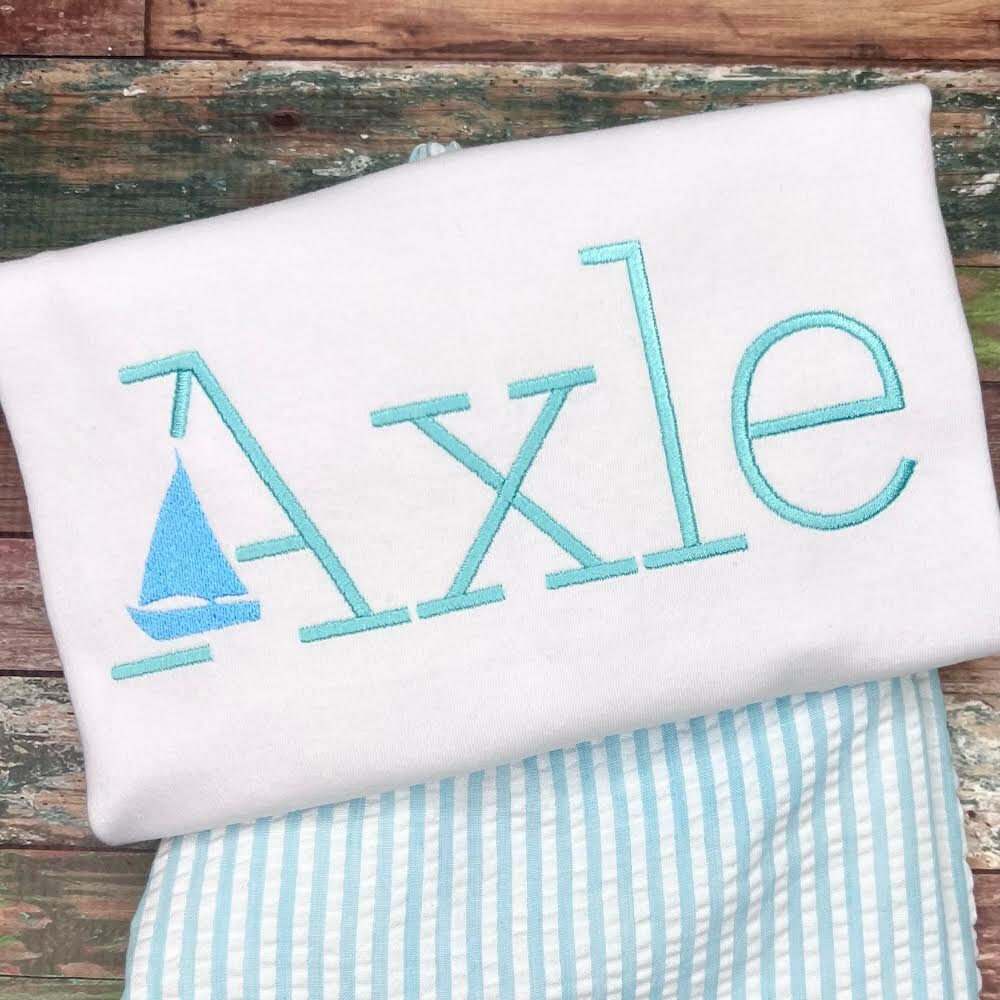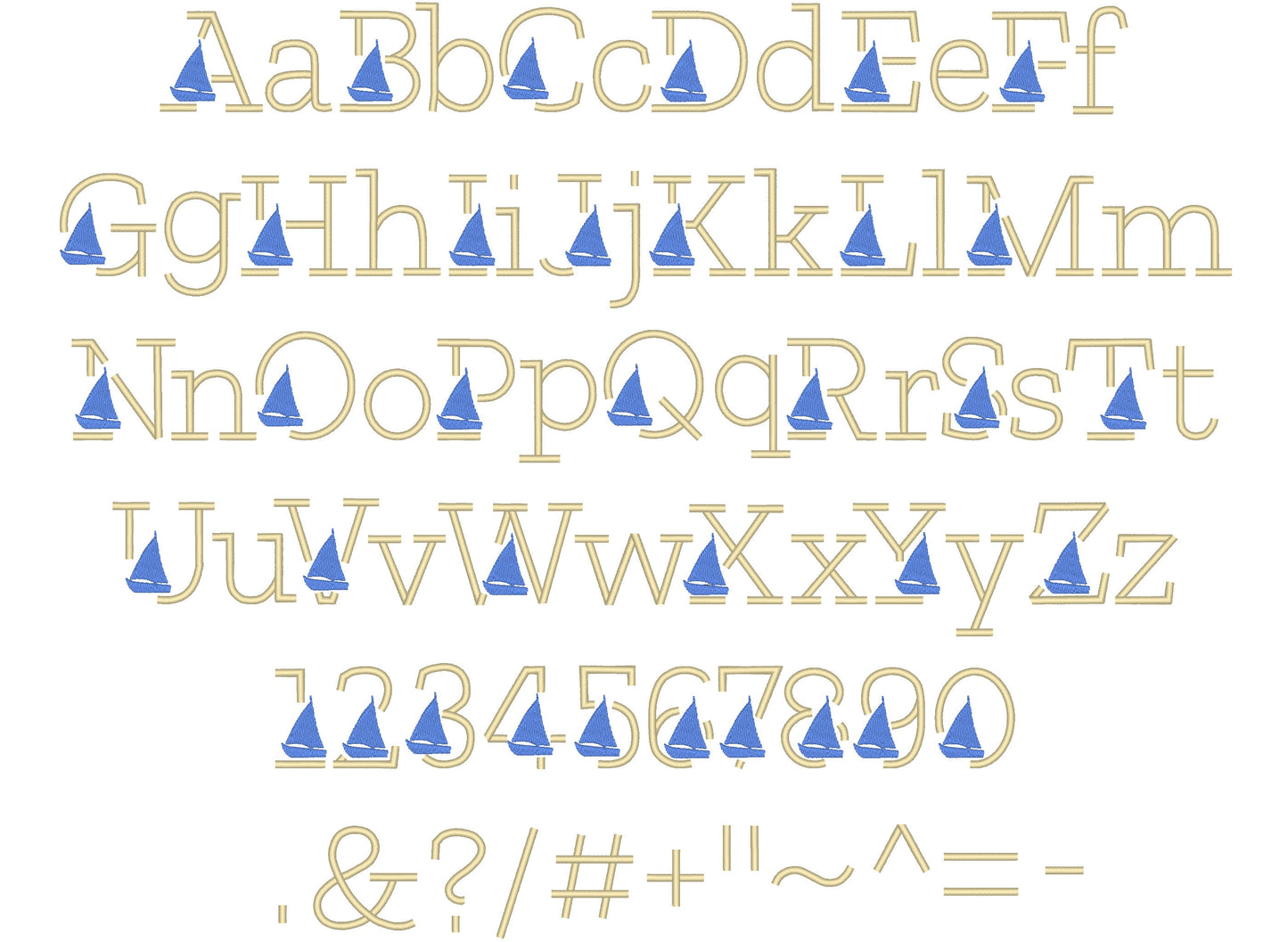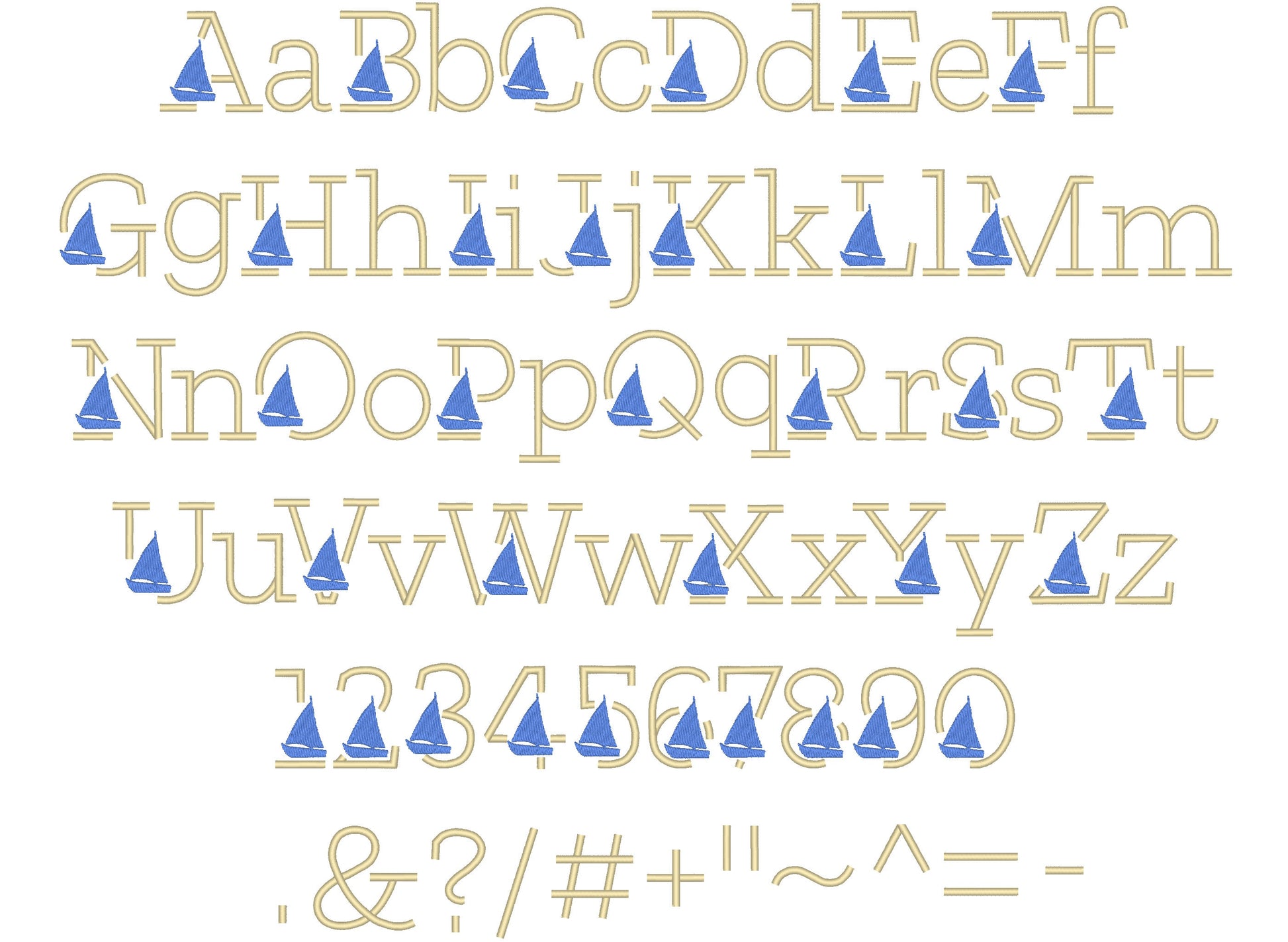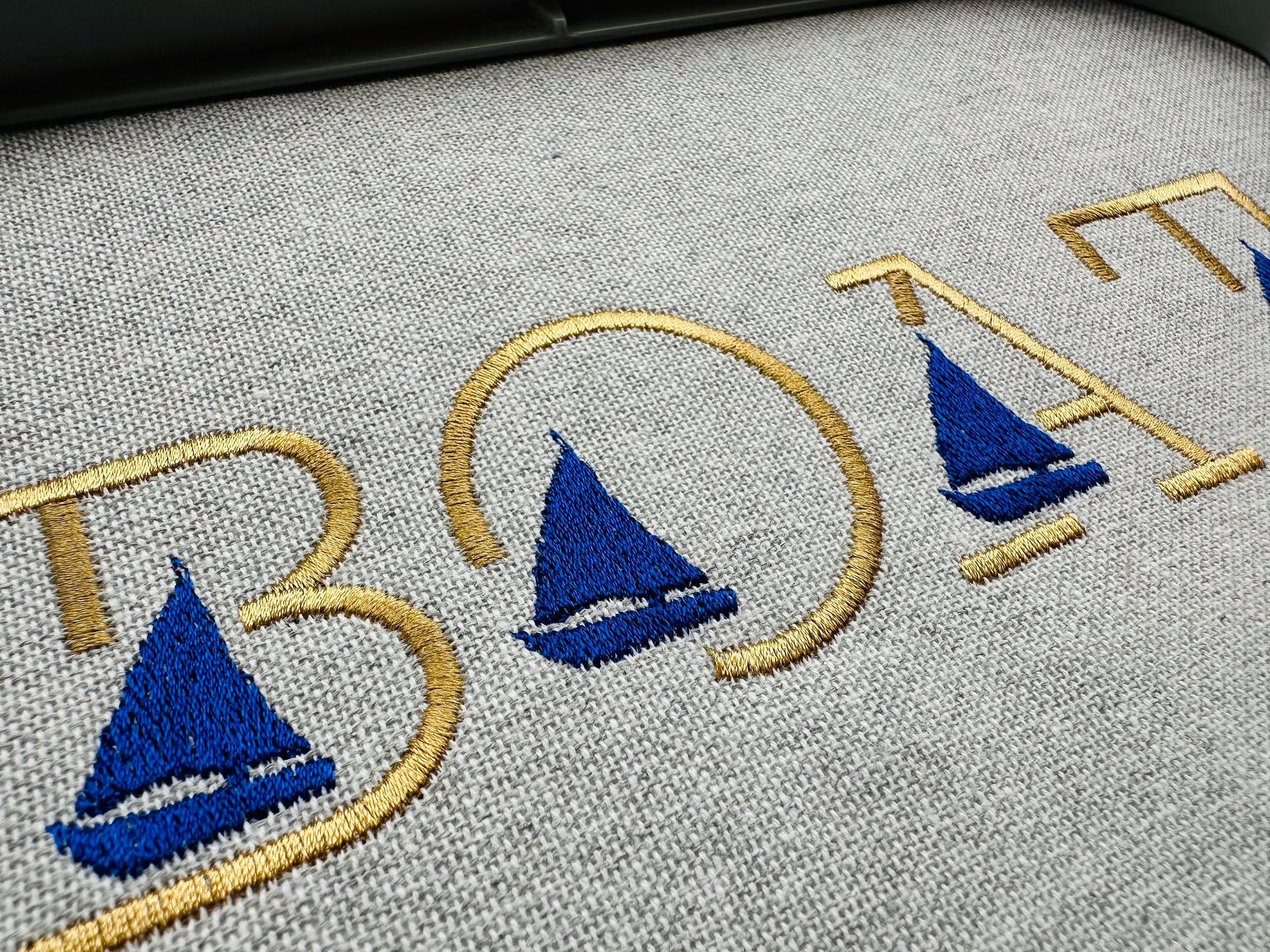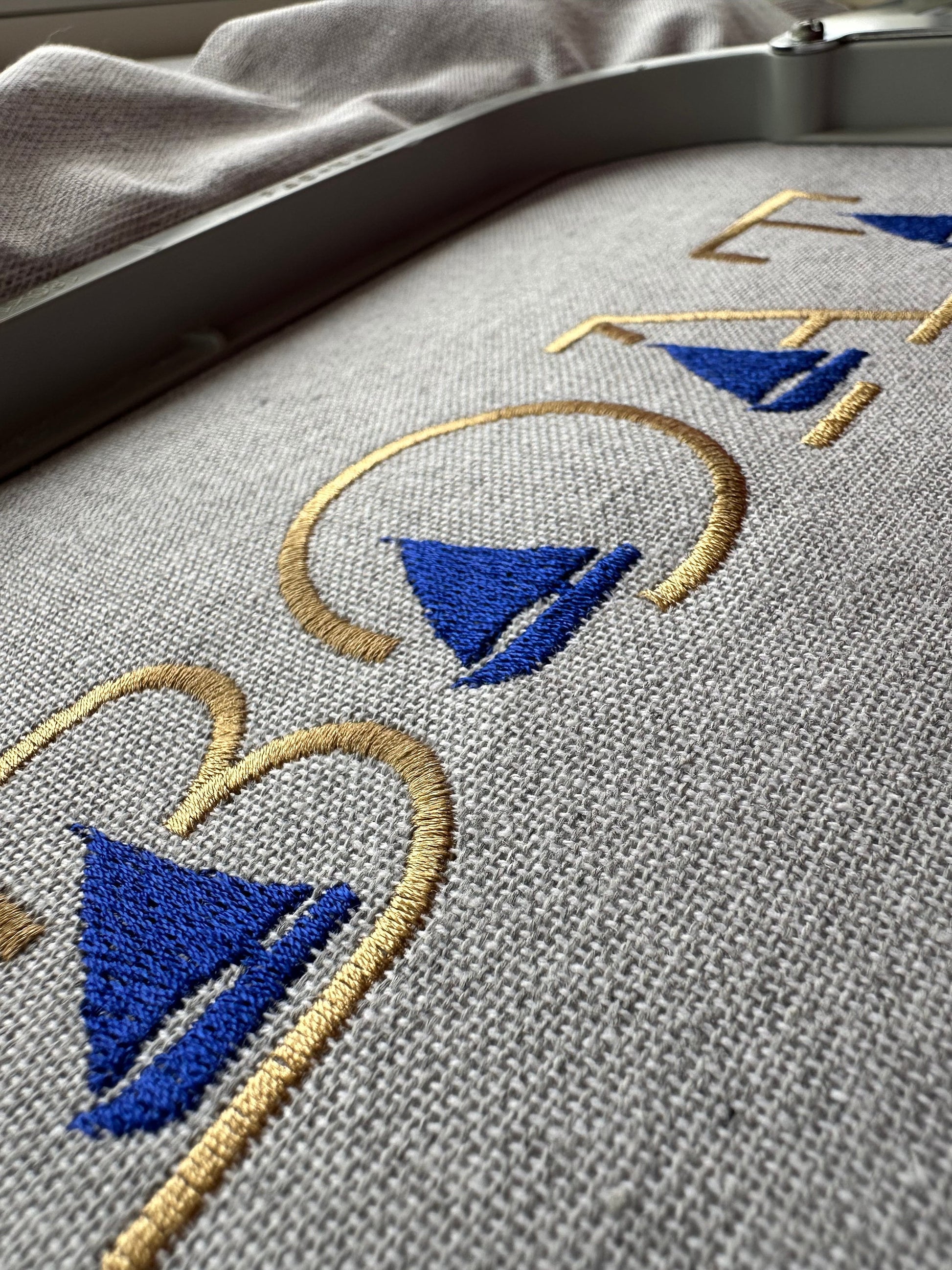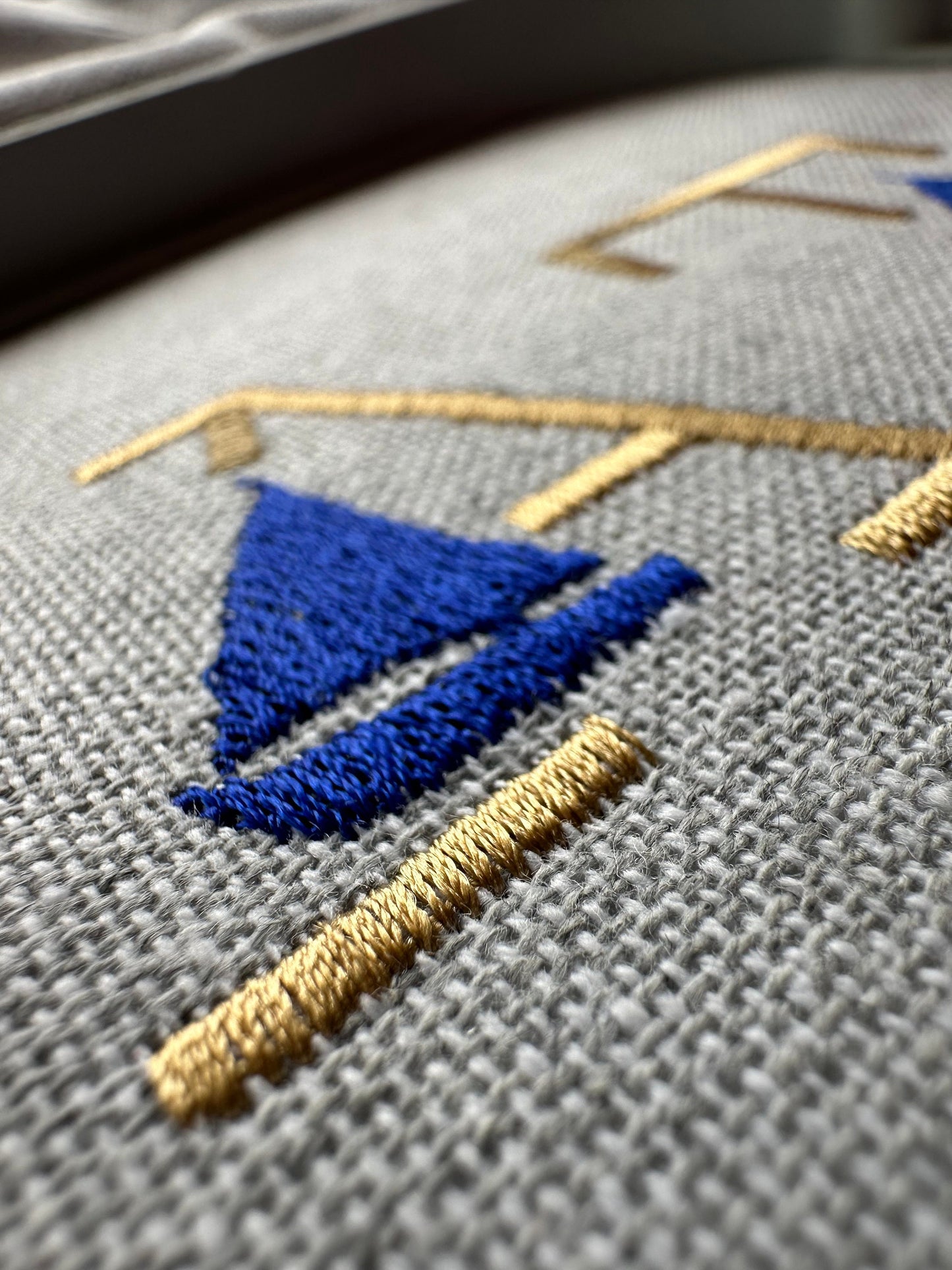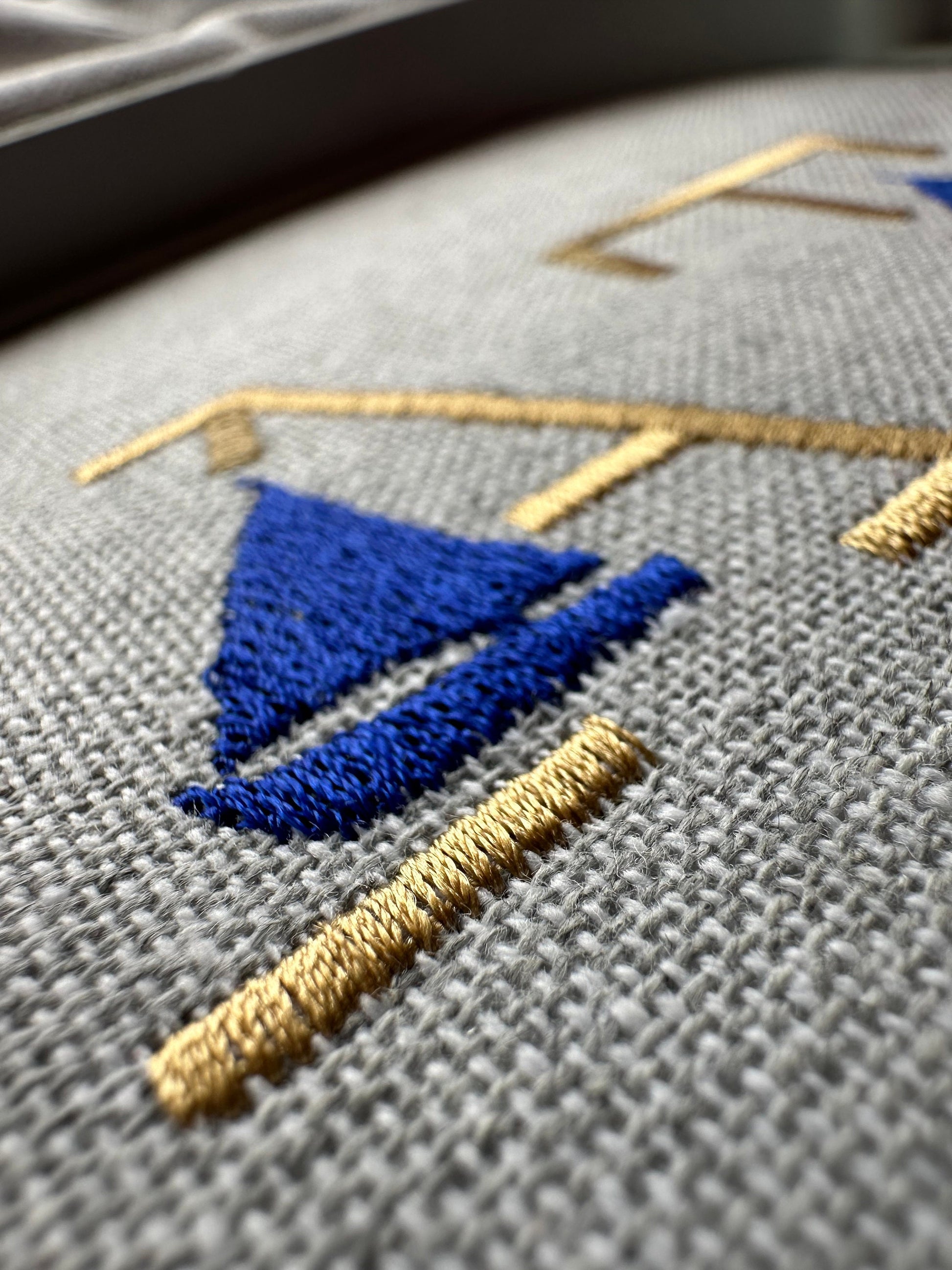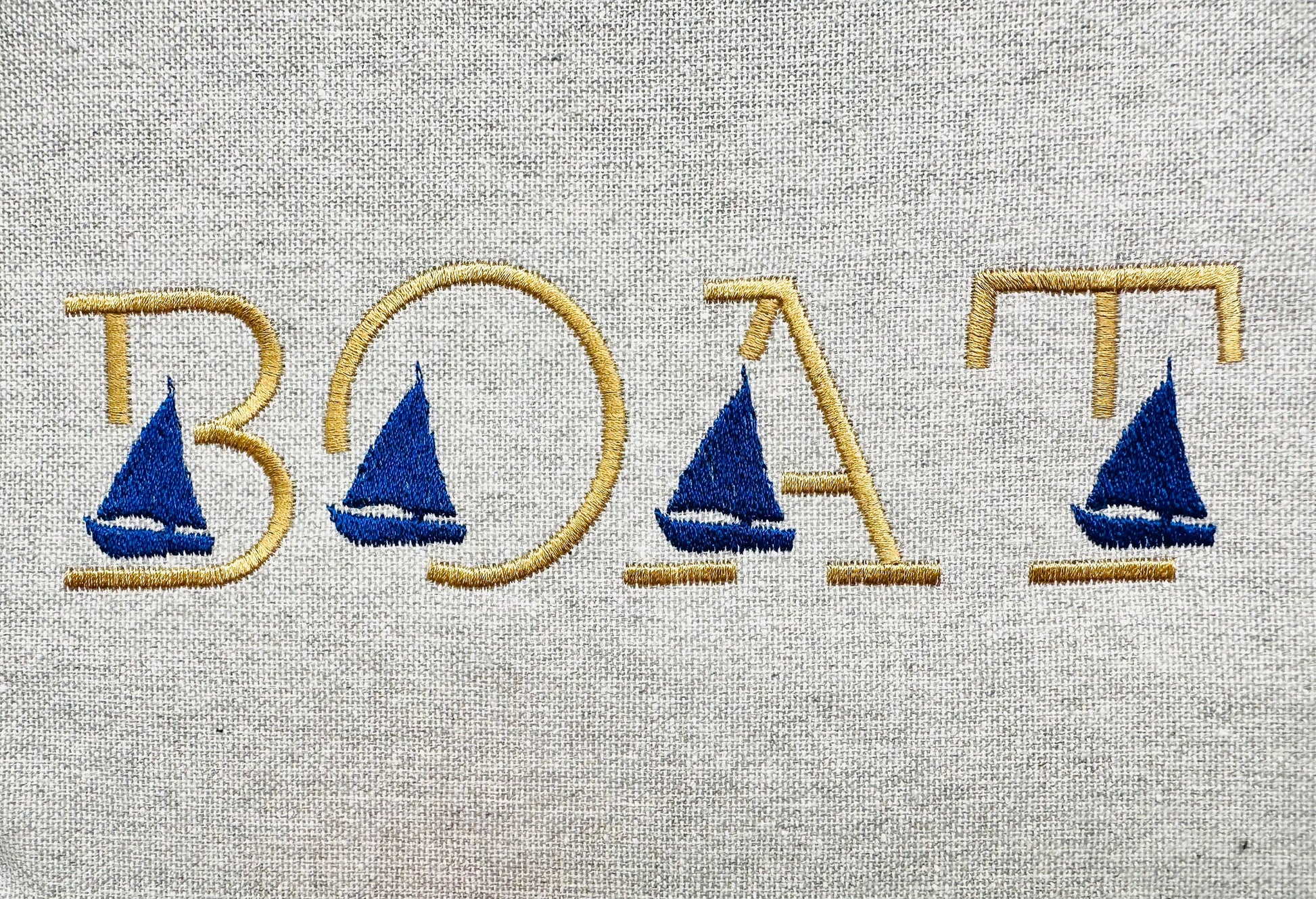
Or click to open the linkA small satin stitch sailing font with a little boat theme. Cute for summer shirts, beach bags, towels and boys' names.
Uppercase and lowercase letters, numbers 0 to 9, an ampersand and punctuation. Seven sizes: 0.8, 1, 1.4, 1.7, 2, 2.5 and 3 inches. Smooth satin stitching.